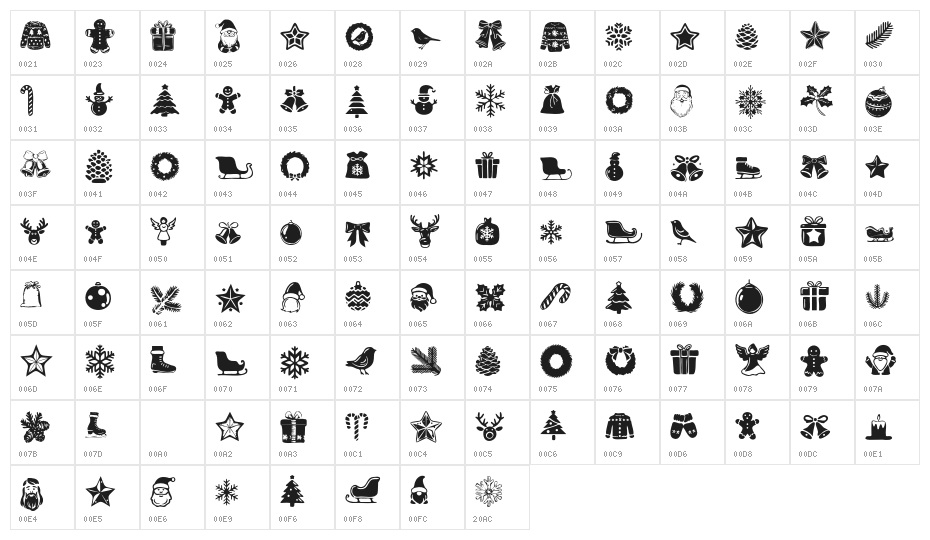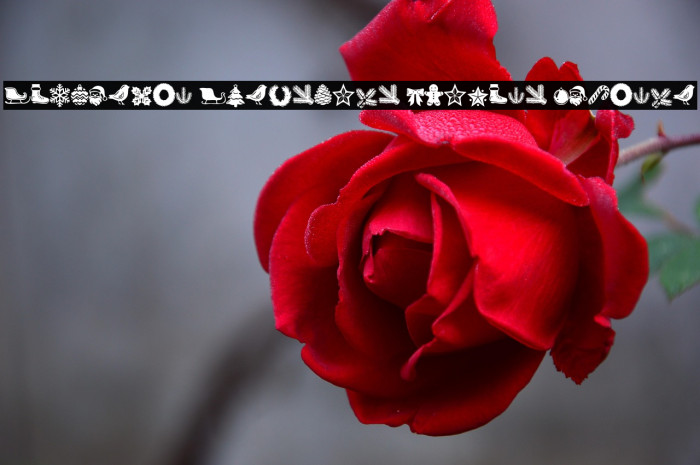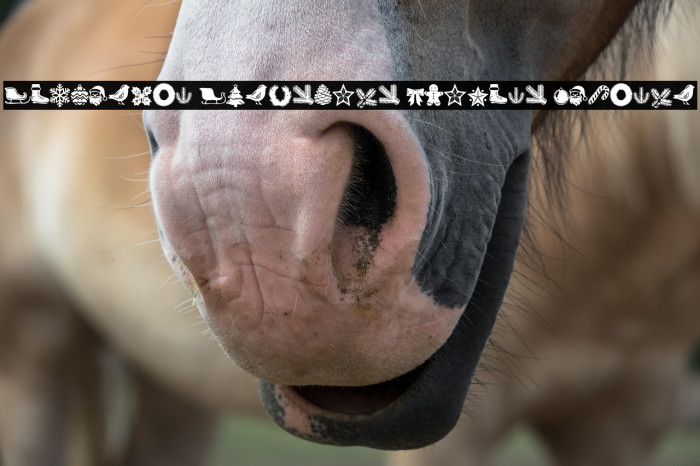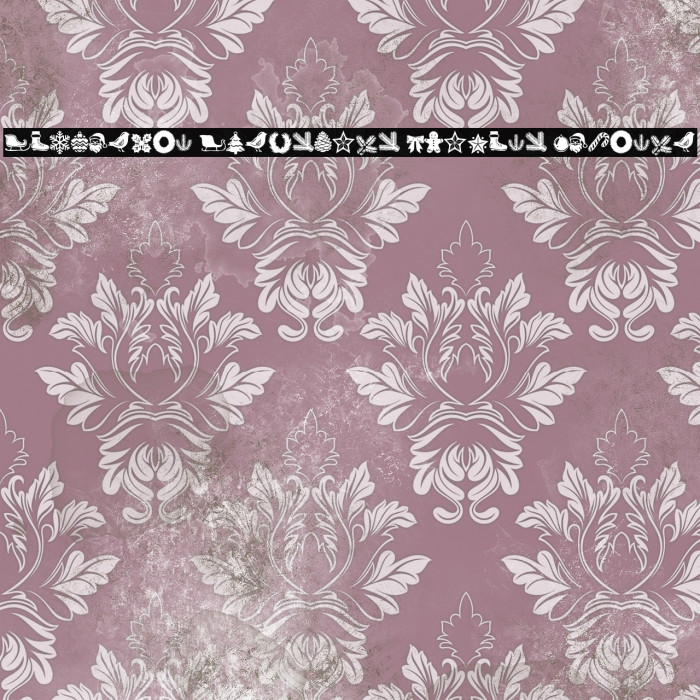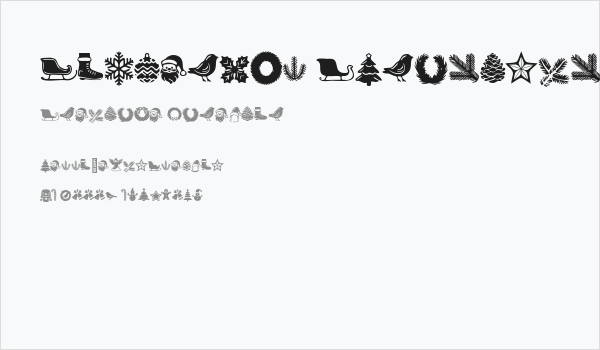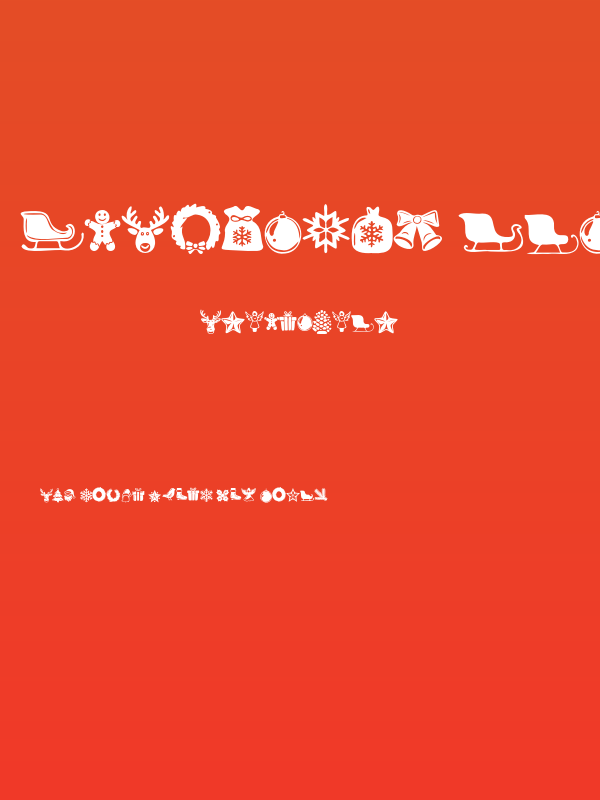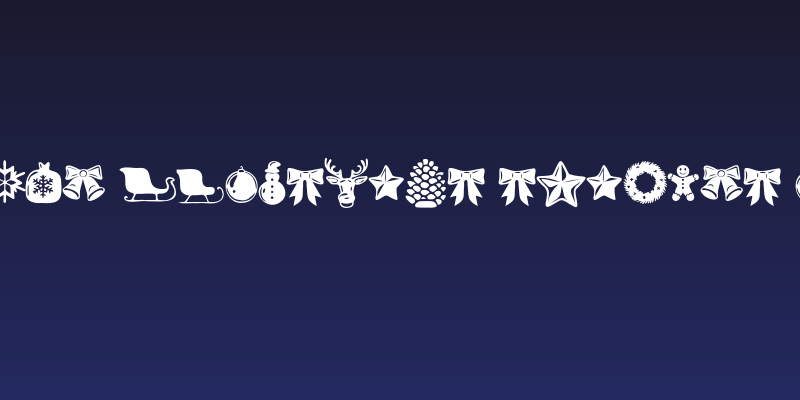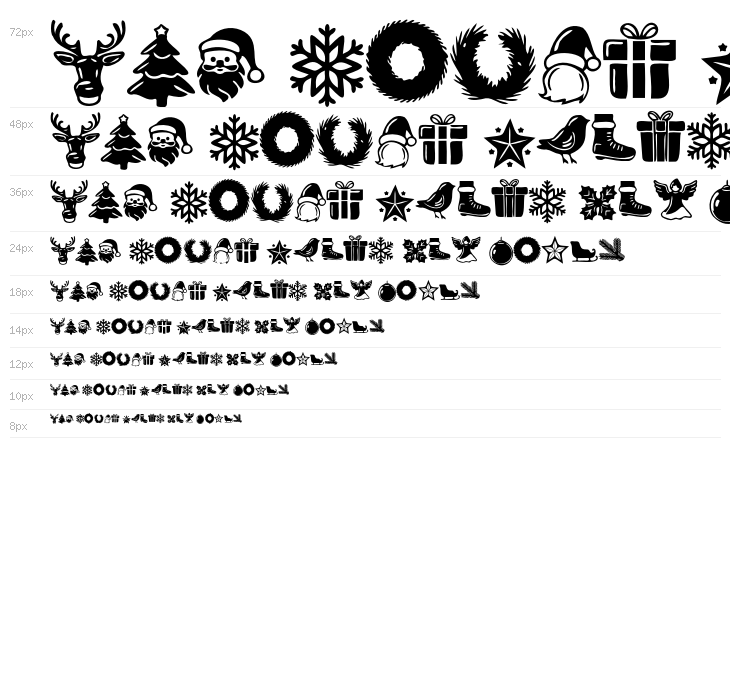
Wonderful Christmas Symbols Regular Font
Wonderful Christmas Symbols Regular Description
This set of symbols captures the essence of Christmas with a delightful array of festive icons. Each symbol is intricately designed, featuring classic holiday elements such as snowflakes, reindeer, Christmas trees, and Santa Claus. The icons are bold and easily recognizable, making them perfect for adding a touch of holiday spirit to any project. The style is playful and decorative, with a consistent use of solid black silhouettes that ensure clarity and impact. These symbols are ideal for use in holiday cards, festive decorations, and seasonal marketing materials.
| Use Case | Logos, Headlines, Decorative elements |
| Proposed Projects | Holiday cards, festive decorations, seasonal marketing materials, gift tags, and Christmas-themed websites. |